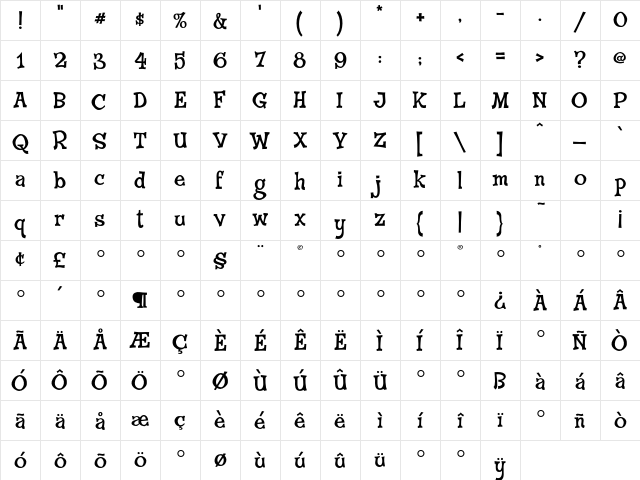
FinkRoman Regular Free Font
FinkRoman Regular
Design Context for FinkRoman
FinkRoman is a composed and adaptable typeface that performs quietly and consistently across a wide range of design contexts.